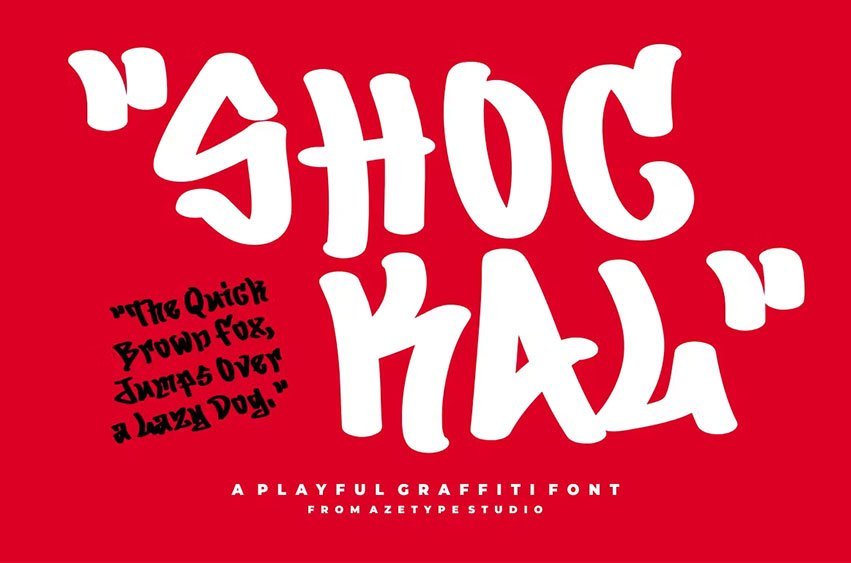
AZ Shockal Font is a playful graffiti font suitable for your design project needs, such as; social media posts, quotes, overlays on images, tagline logos, posters, print needs, website banners, and more.